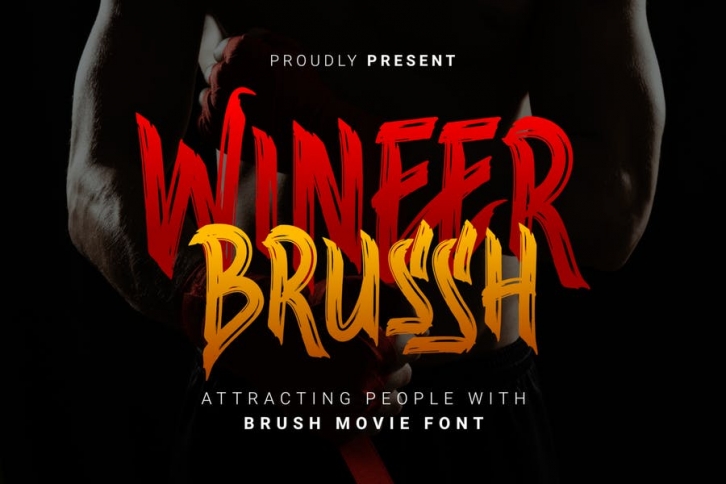
Wineer Brussh is a brush-type font that is uniquely crafted and has an amazing texture character making it perfect for collaborating with your projects.
Wineer Brussh is a font that is equipped with uppercase, lowercase, ligature, and multilingual which is suitable for movie titles, videos, scary, action, fantasy, and thriller titles like the example in the preview image above.